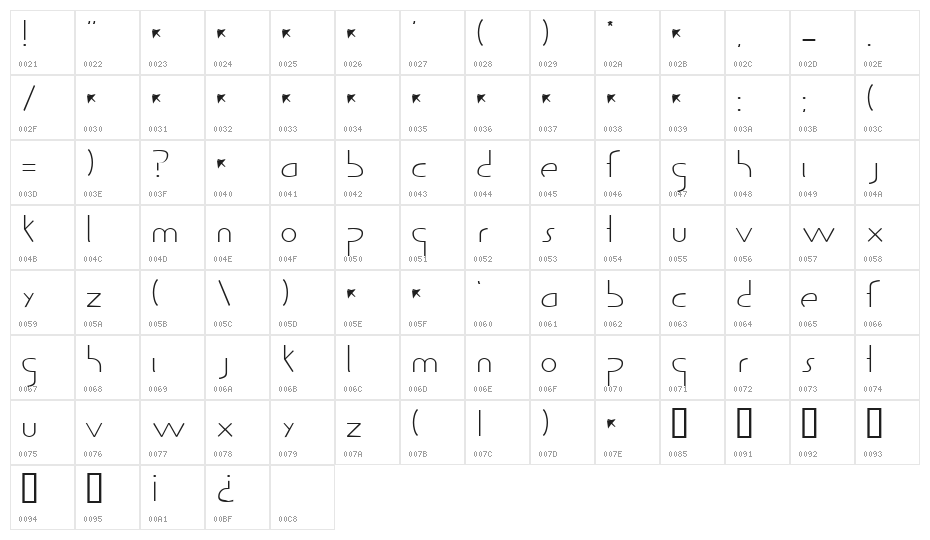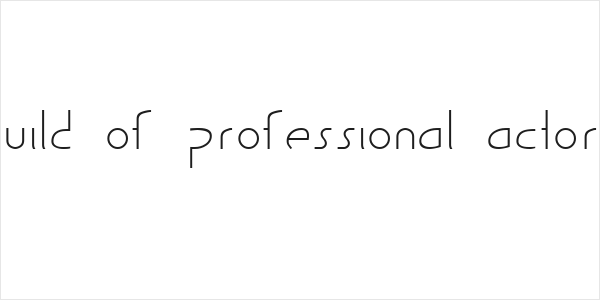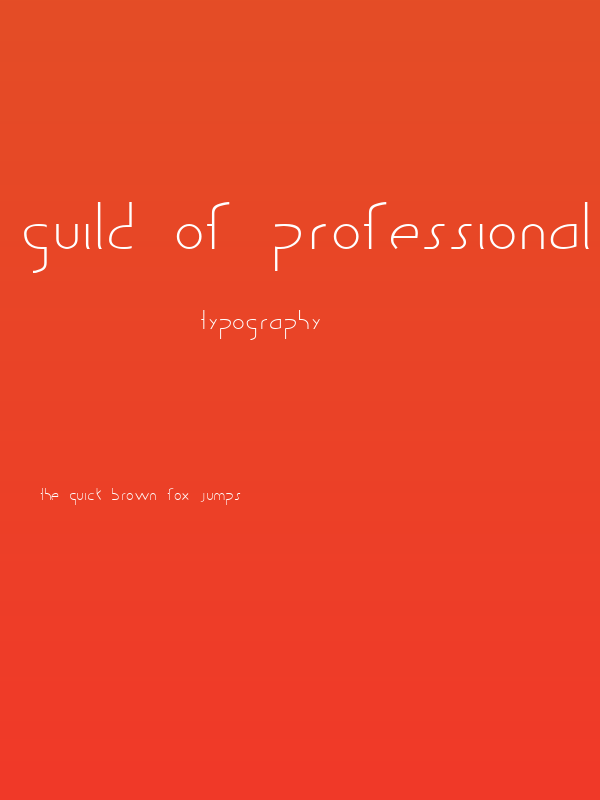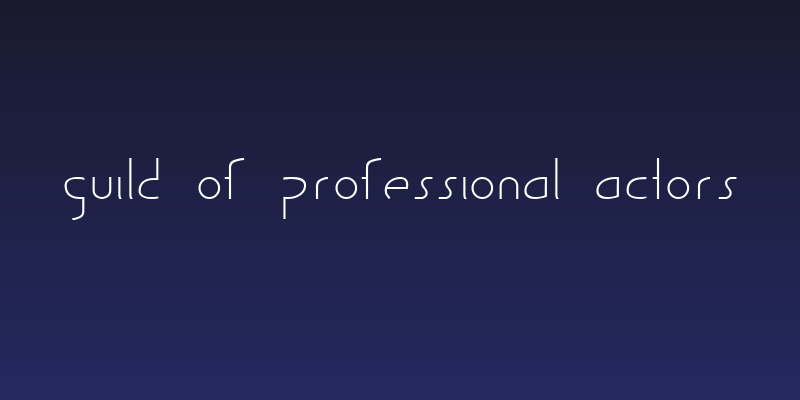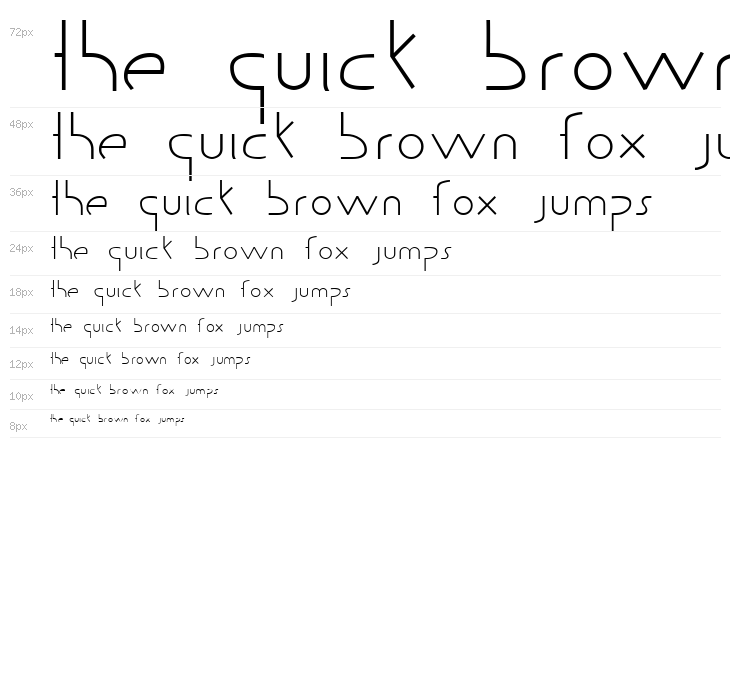
Guild of Professional Actors Font
Guild of Professional Actors Description
This font features a sleek and modern design with a minimalist aesthetic. The characters are composed of thin, uniform lines that create a clean and airy appearance. The letters have a geometric structure, with rounded edges and a consistent stroke width throughout. The overall look is futuristic and elegant, making it suitable for contemporary design projects. The font maintains a balanced proportion between height and width, ensuring readability while retaining its stylish appeal. The special characters and punctuation marks are designed to complement the overall style, maintaining the same thin and precise line work.
| Use Case | Headlines, Logos, Digital interfaces |
| Proposed Projects | Ideal for modern branding, tech-related designs, minimalist posters, and digital interfaces. |